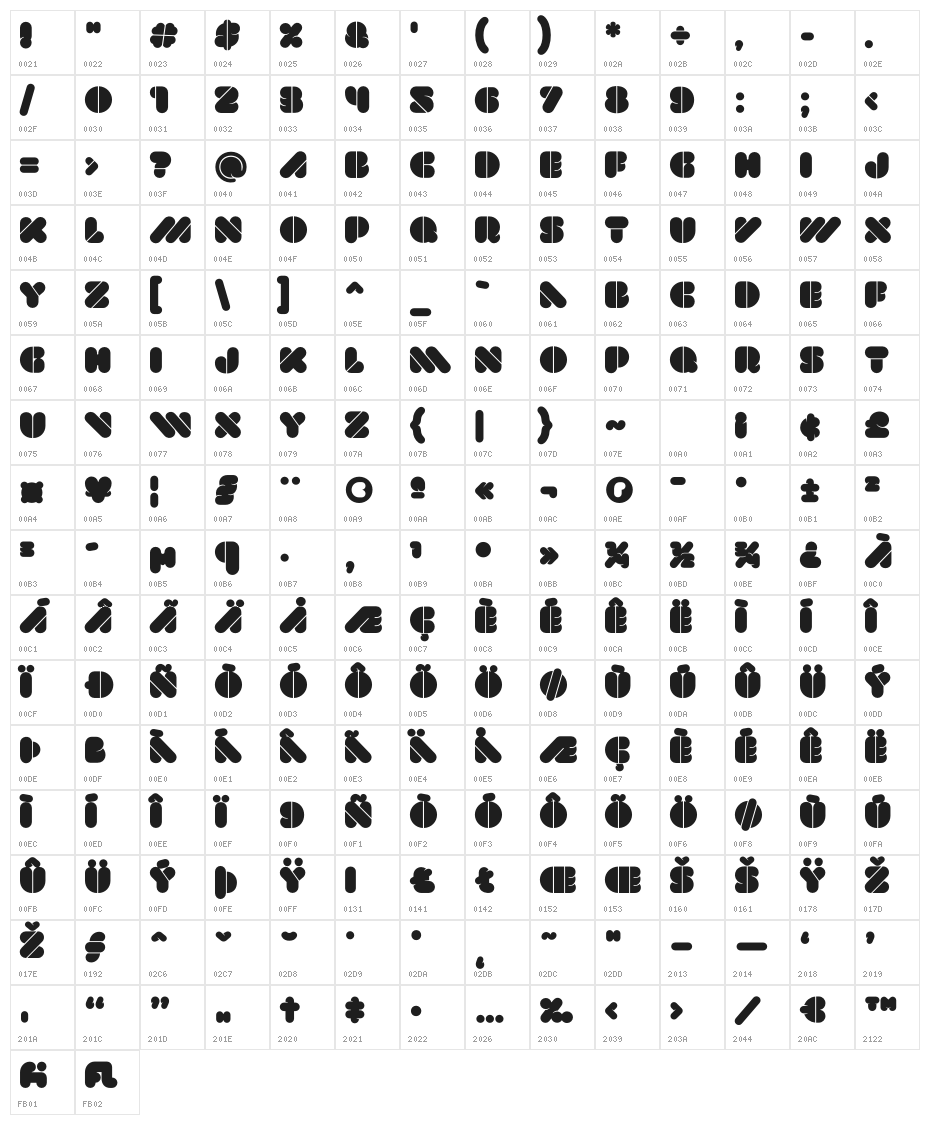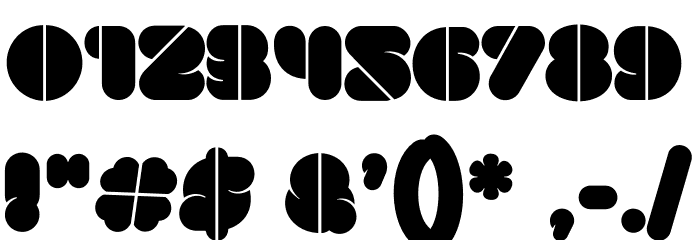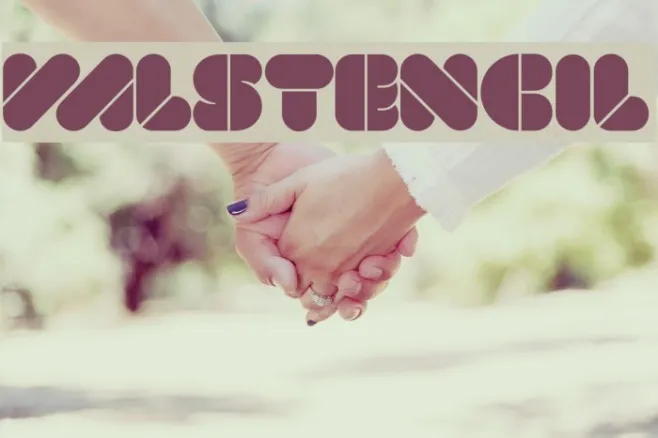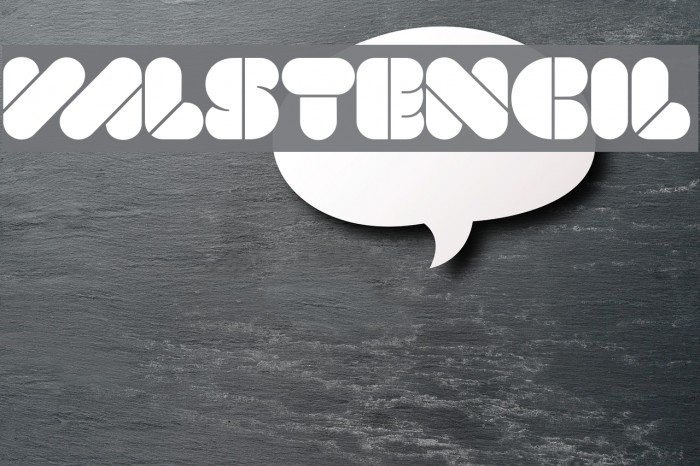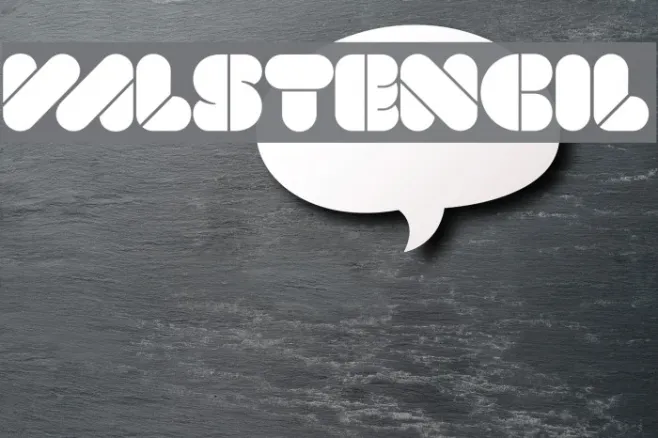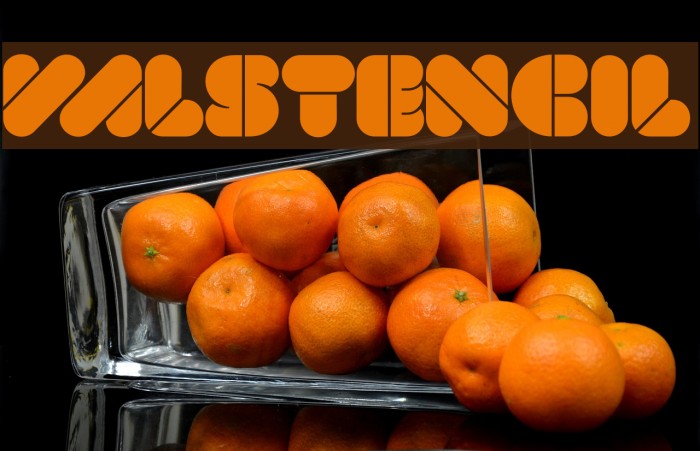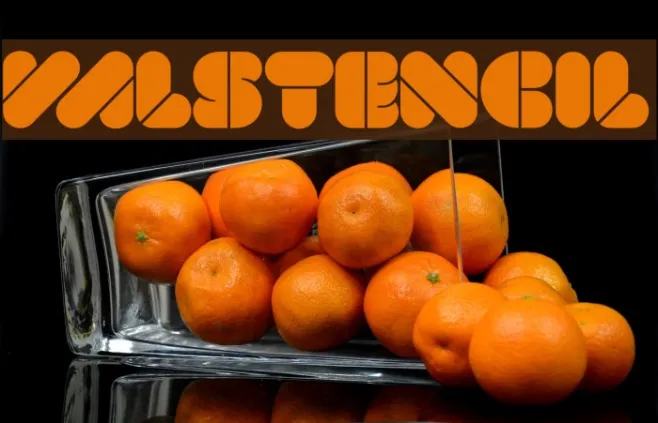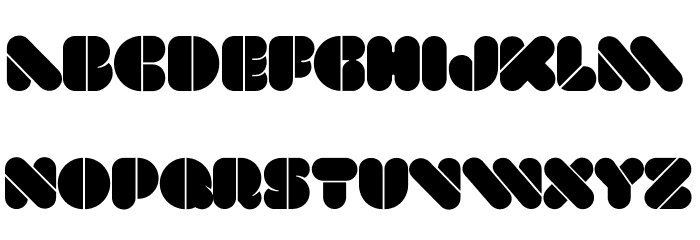
VALStencil Font
VALStencil Description
This font features a bold, geometric design with a distinct stencil effect. Each character is composed of solid, rounded shapes with strategic cutouts that create a unique, fragmented appearance. The boldness of the letters ensures high visibility and impact, making it suitable for attention-grabbing designs. The uniformity in the shape and size of the characters provides a cohesive look, while the stencil style adds an industrial, modern touch. The font's design is both functional and artistic, offering a balance between readability and visual interest.
| Proposed Projects | Ideal for branding, posters, signage, and any project requiring a modern, industrial aesthetic. |